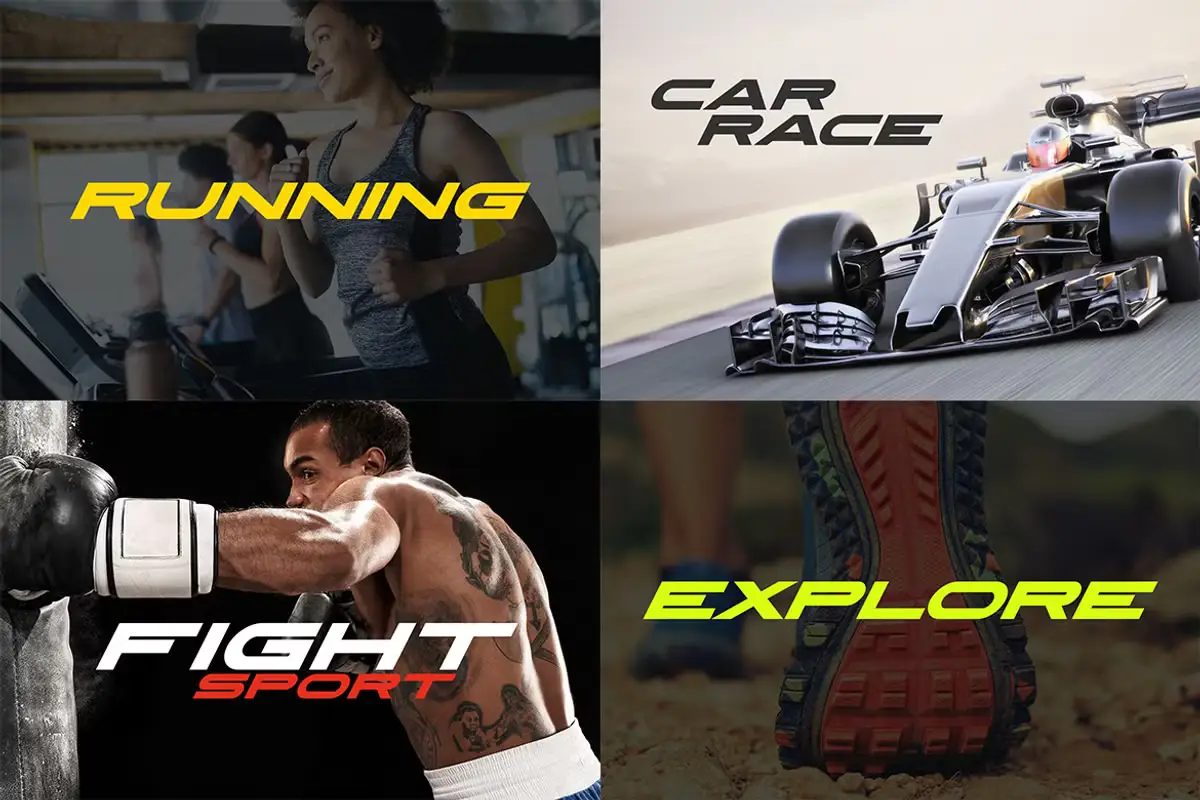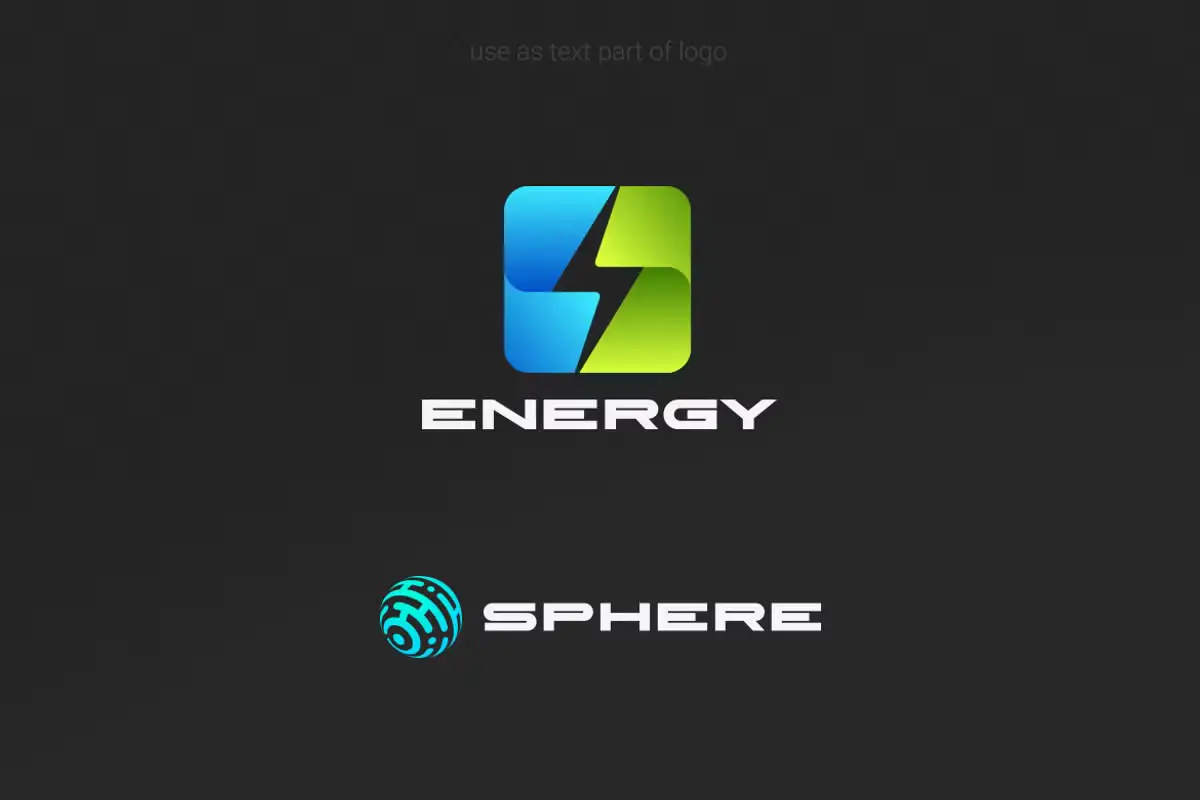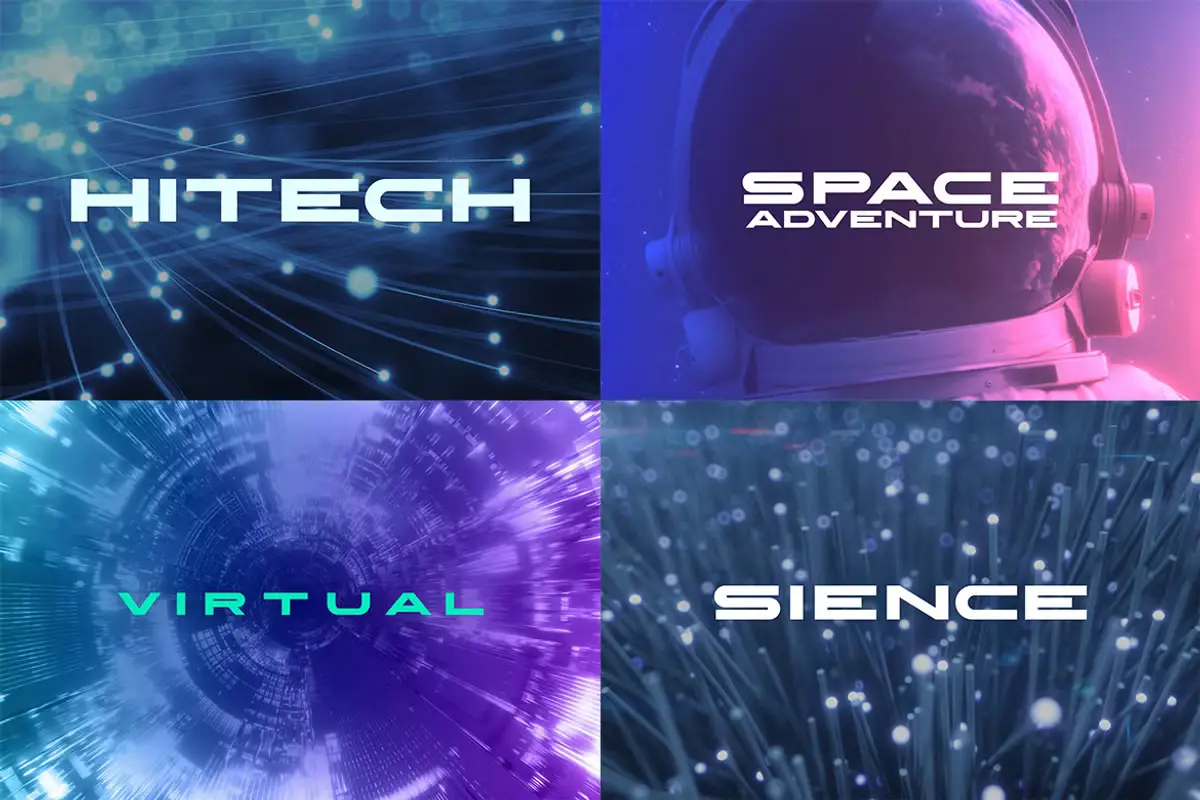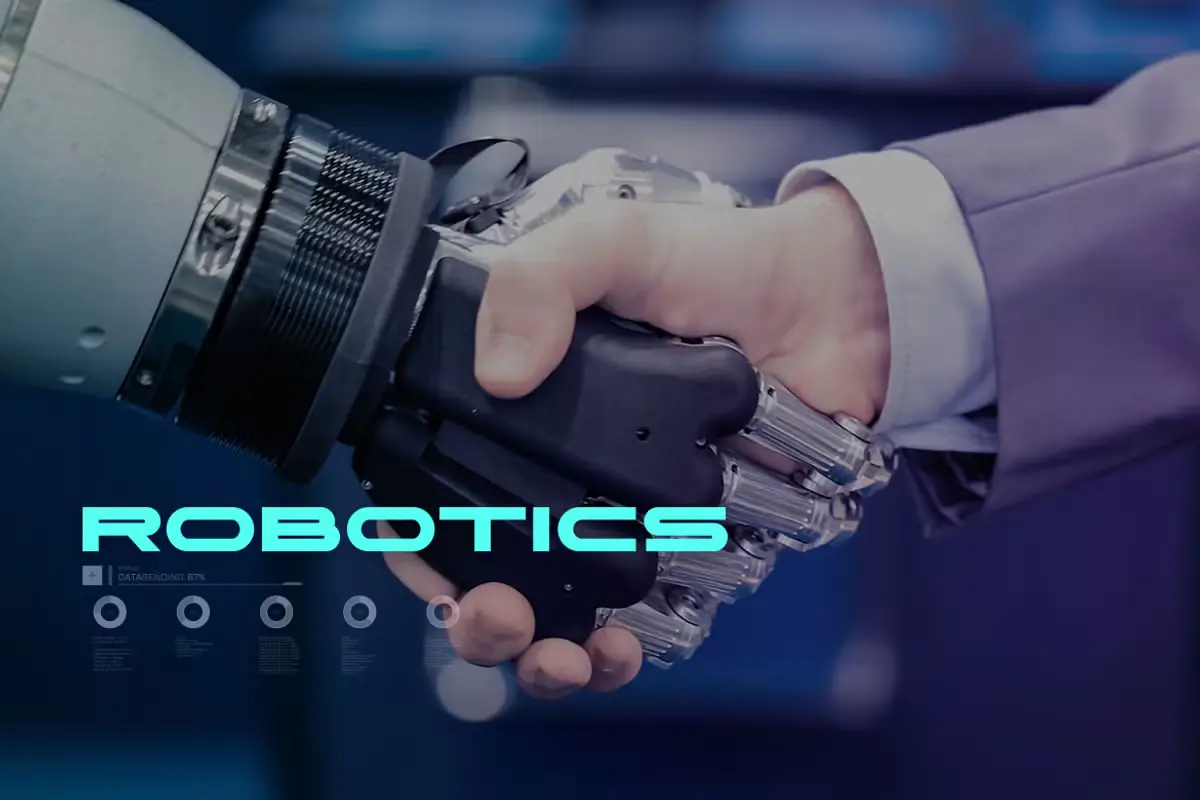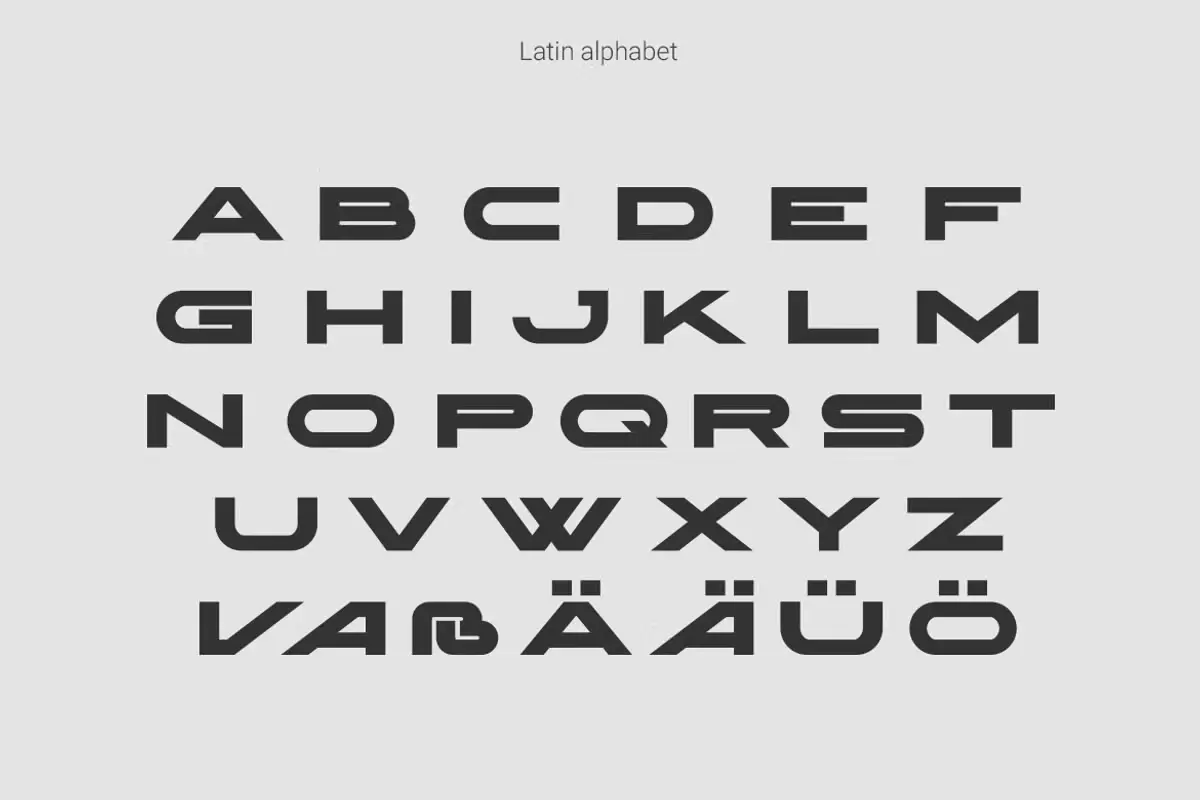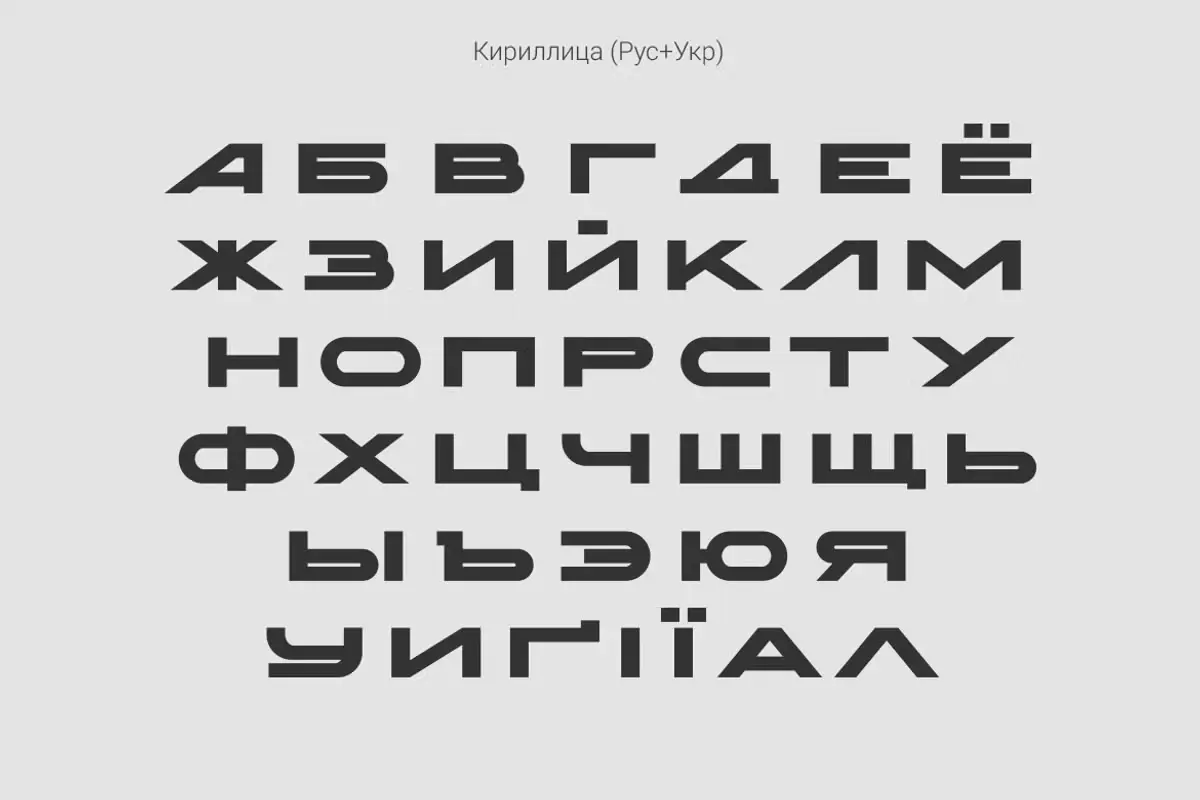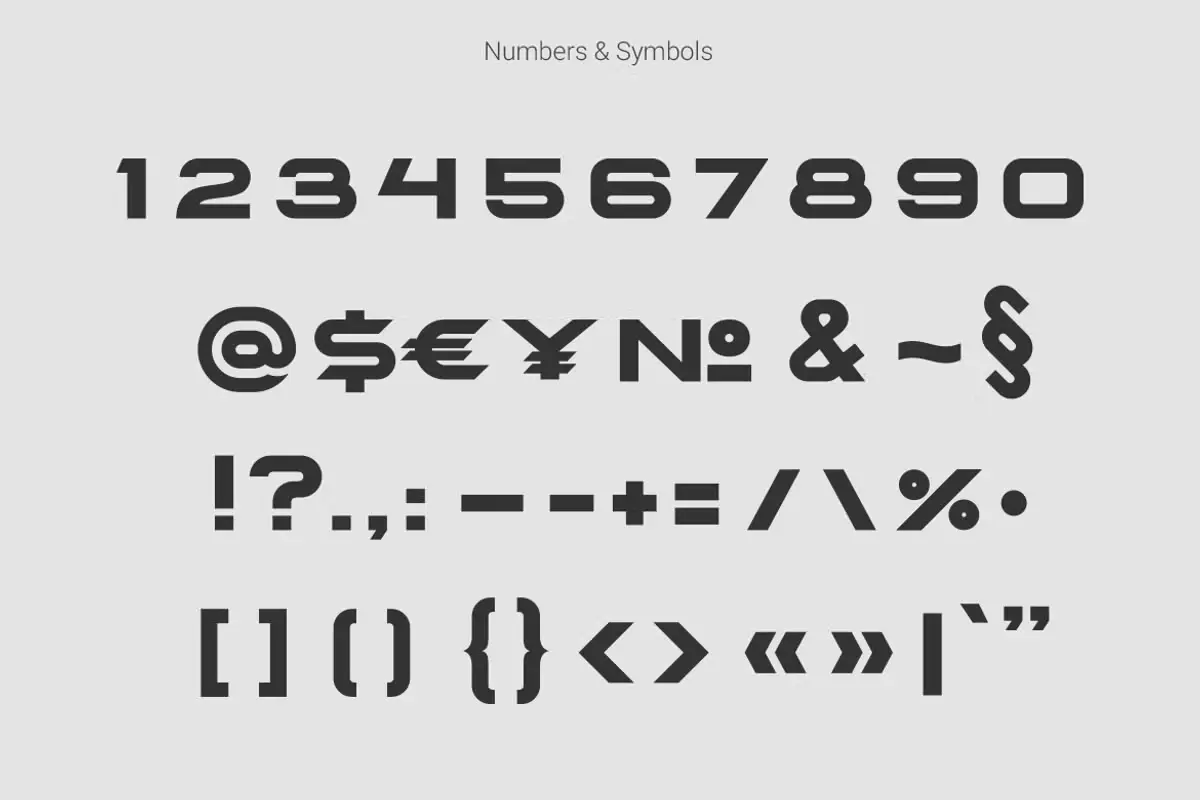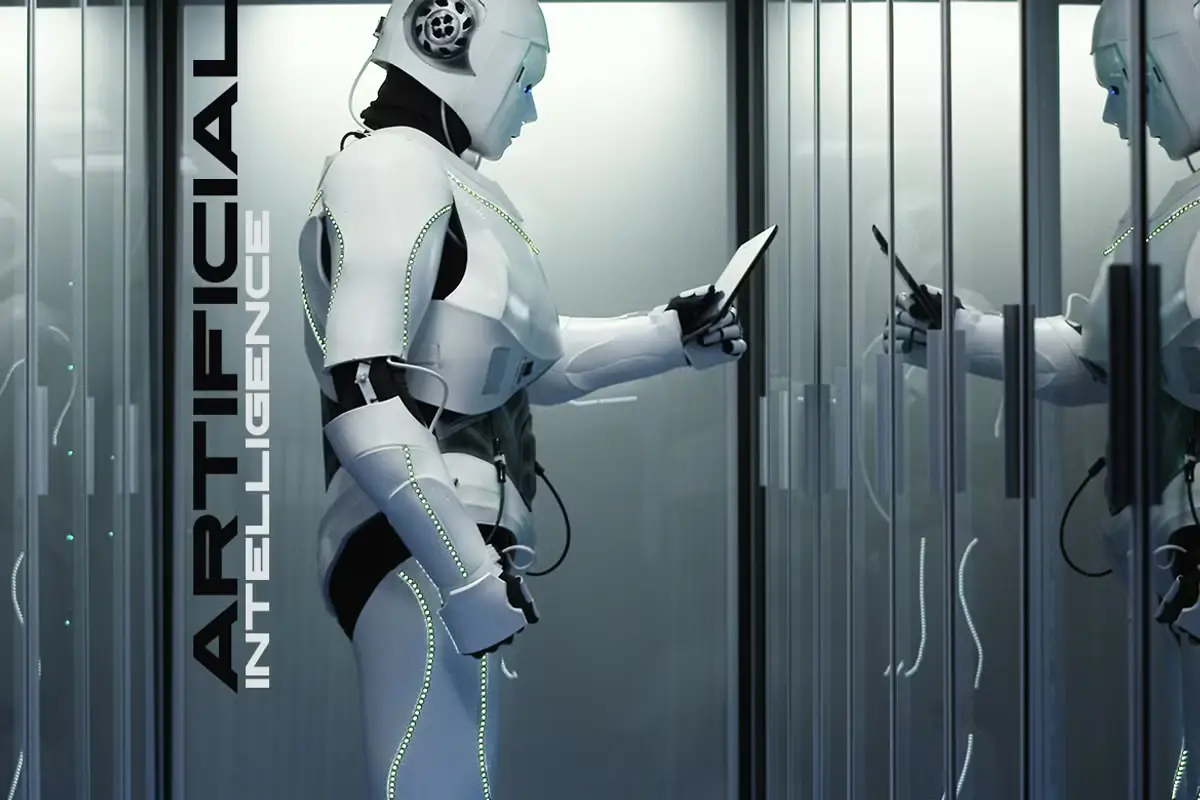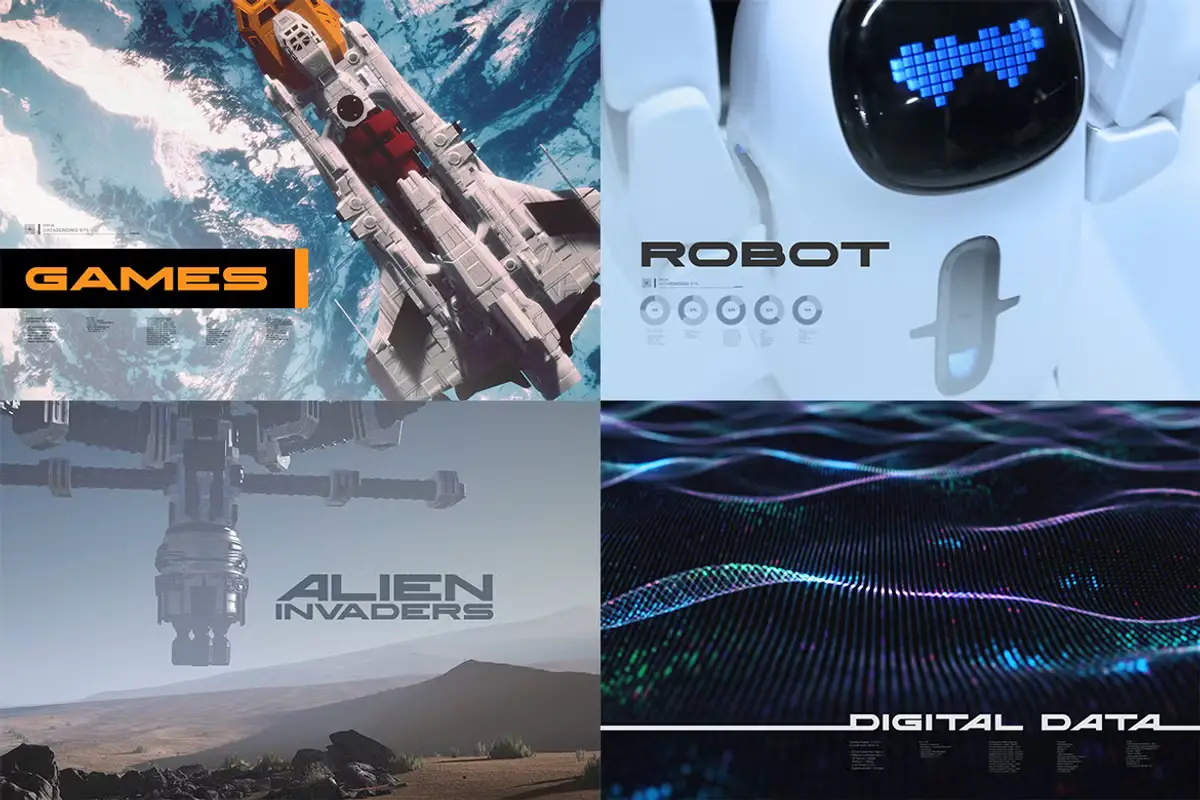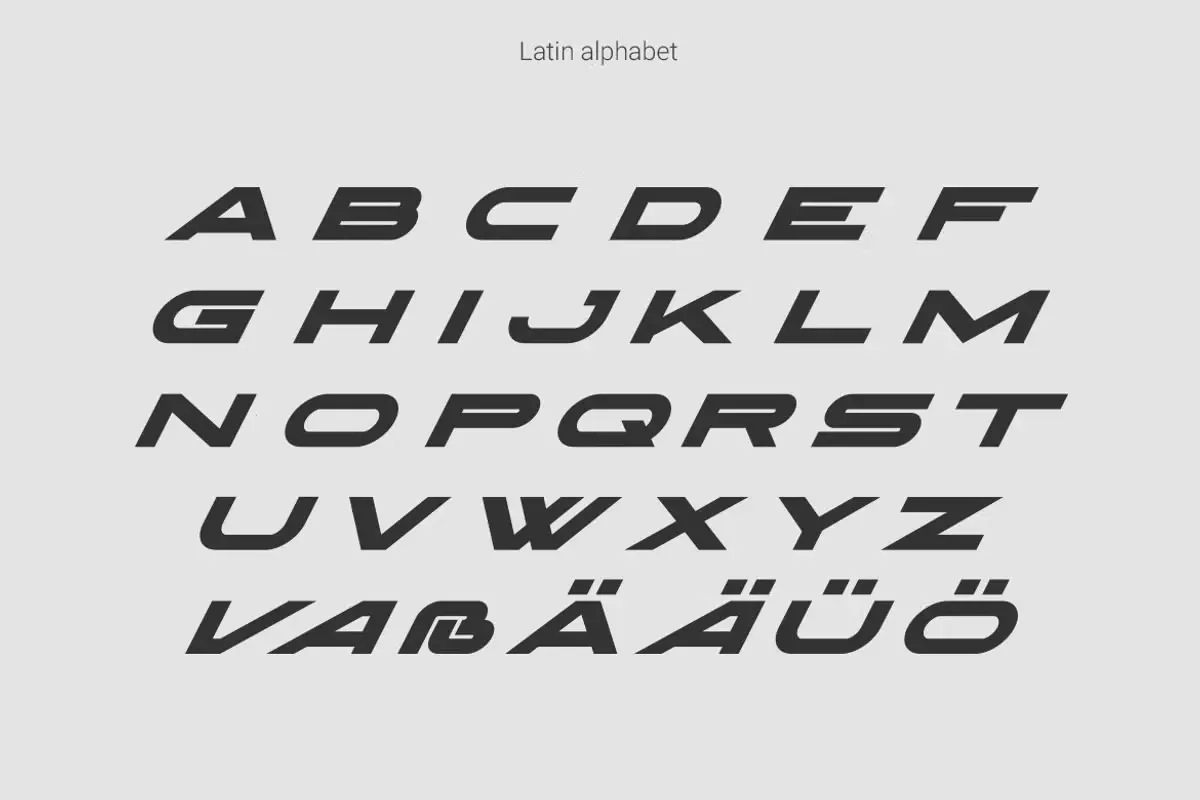
Step into the future of design with the Spacegate Font, a stunning digital asset that brings a bold, futuristic vibe to your projects. Perfect for creating eye-catching headers or sleek body text, this font is your go-to choice for anything related to technology, sci-fi, and modern aesthetics.
The Spacegate Font is a premium display font designed for creatives who want to make a statement. Whether you’re working on a logo, a website, or promotional materials, this font adds a unique touch that resonates with themes of innovation and the future.
- ✅ Futuristic Design → Captivates your audience with a modern, tech-inspired look.
- ✅ Italic Variants → Offers both regular and italic styles to enhance your creative flexibility.
- ✅ Supports German and Cyrillic Characters → Expands your design possibilities for diverse audiences.
The Spacegate Font stands out due to its unique blend of style and functionality. Its modern typography is not only visually appealing but also versatile enough for various applications, from tech startups to fitness brands. You can trust this font to deliver a professional look that aligns with your creative vision.